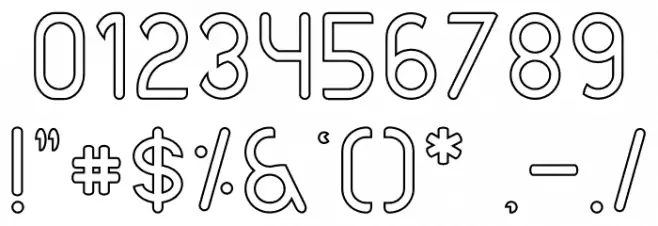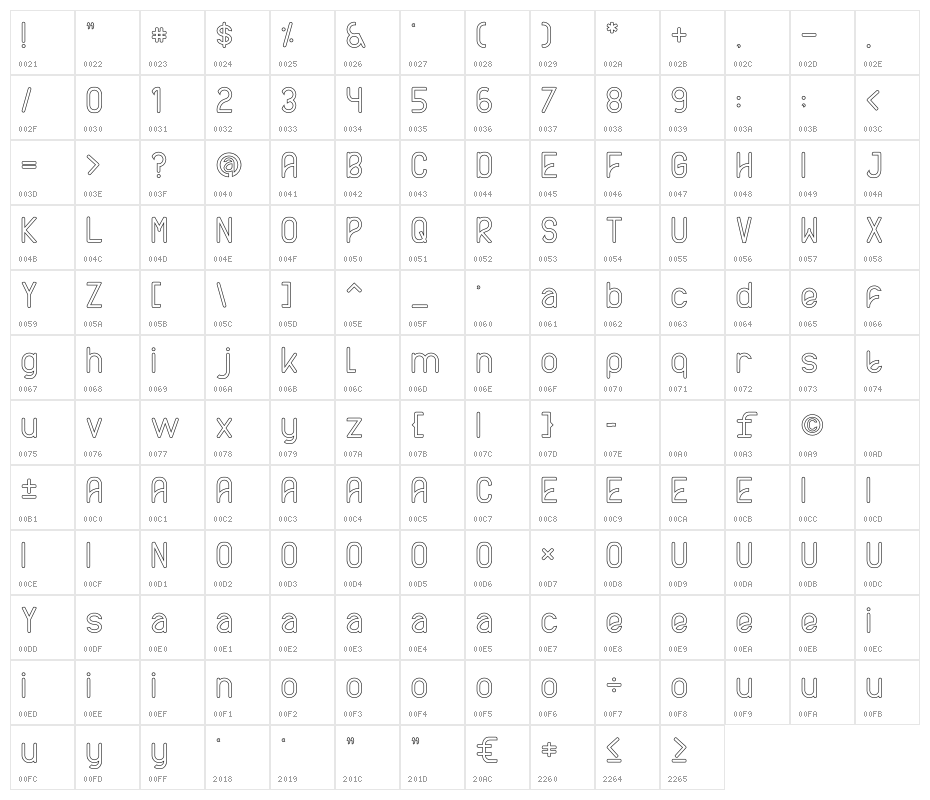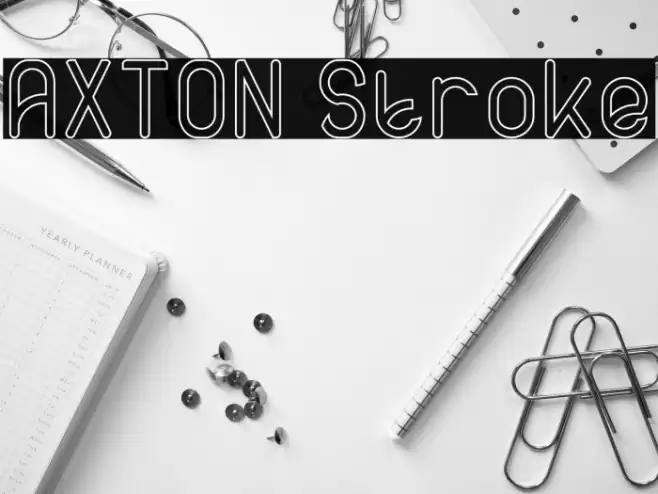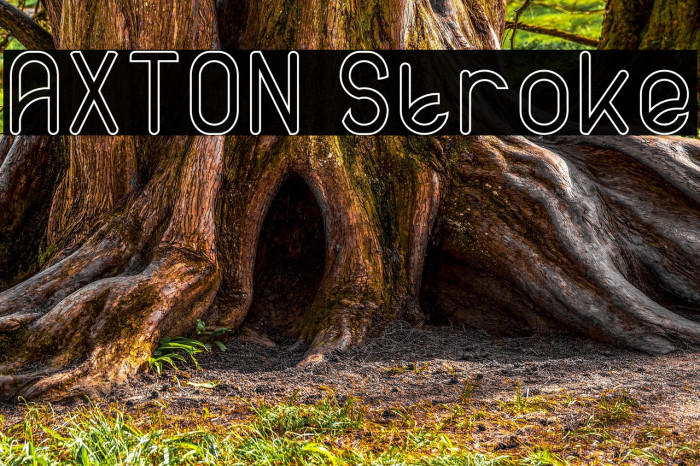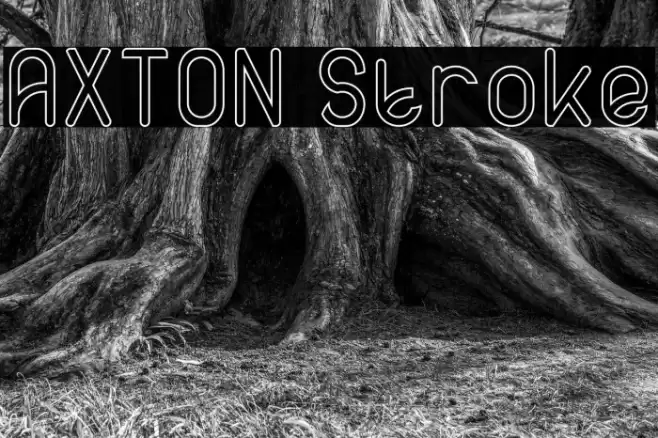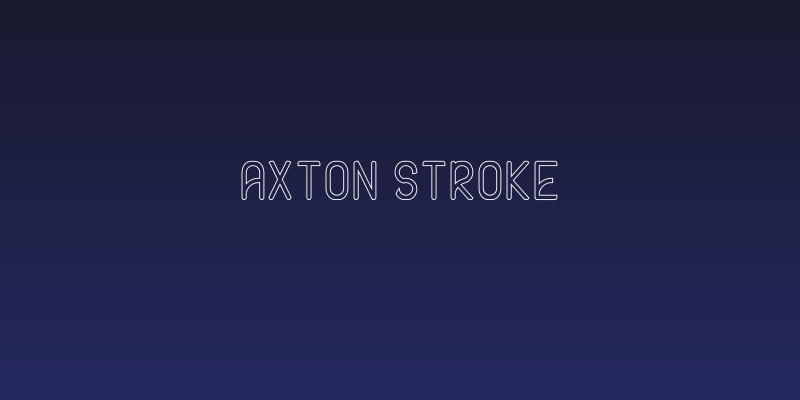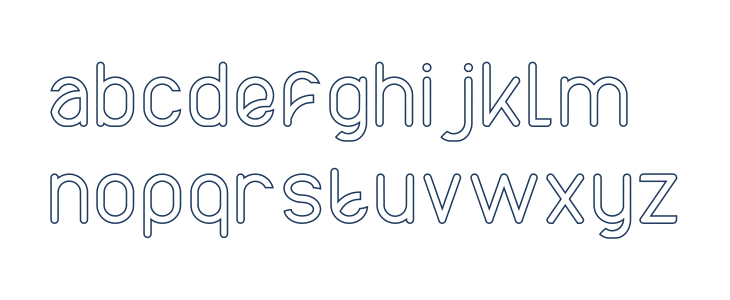
AXTON Stroke Font
AXTON Stroke Description
This font features a modern, geometric design with a hollow, outlined style. The characters are constructed with clean, rounded edges and consistent stroke widths, creating a uniform and cohesive appearance. The uppercase and lowercase letters maintain a similar structure, enhancing readability while providing a unique aesthetic. The numerals and special characters are designed to match the overall style, ensuring versatility across various applications. This font's open and airy design makes it suitable for projects that require a contemporary and minimalist touch.